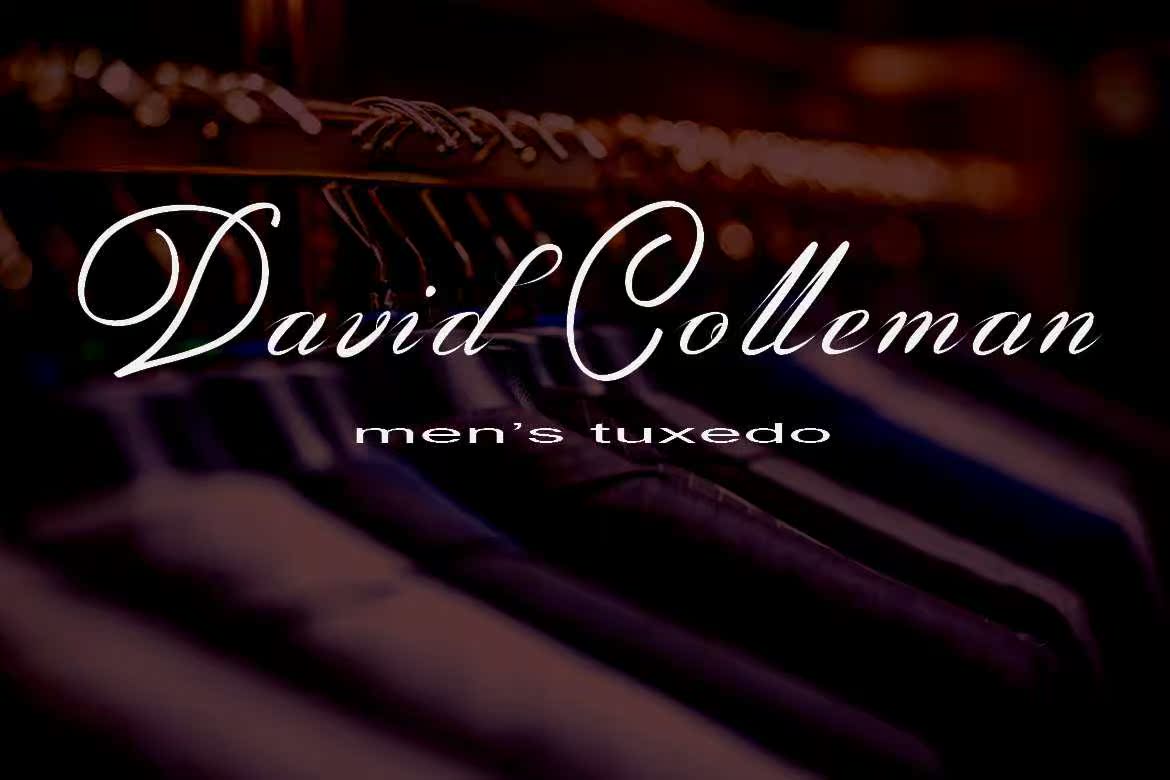
AmarilloisanelegantCalligraphyscript font.Hasamodernfeelandnaturalwritingstyle.amarilloisanelegantCalligraphyscript font.Hasamodernfeelandnaturalwritingstyle.amarilloisanelegantCalligraphyscript.Hasamodernfeelandnaturalwritingstyle。